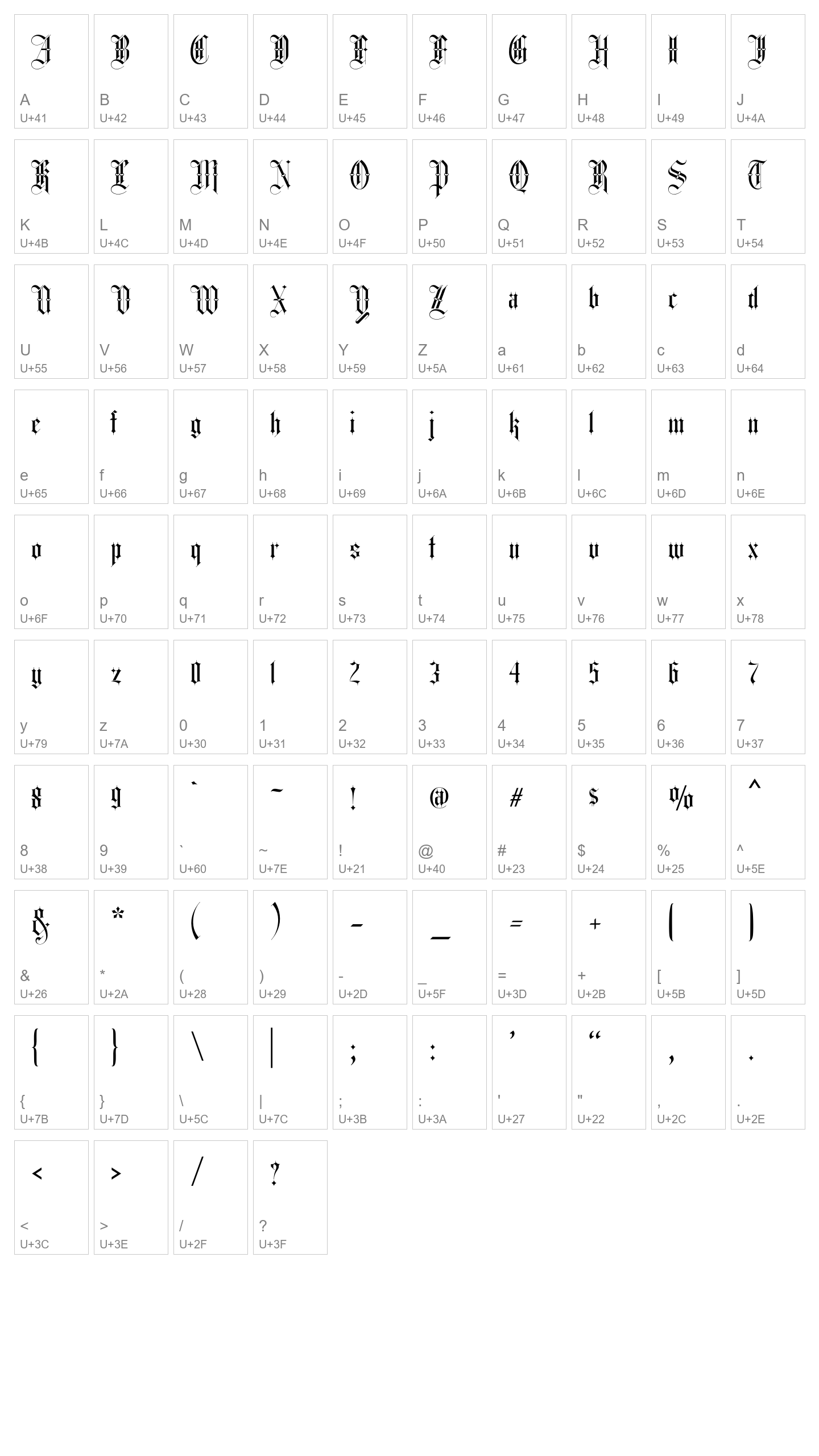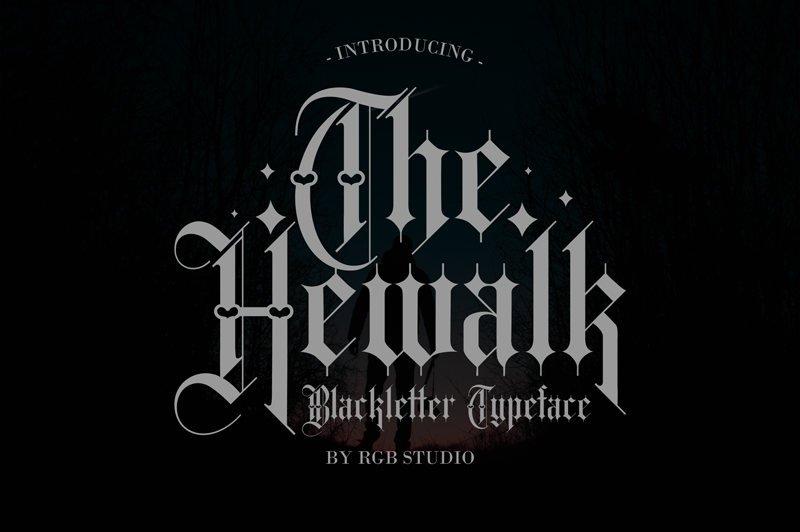
Hewalk
Hewalk is a font inspired by the Blackletter typeface, made with a modern impression but still looks strong and unique. In addition, Young Best font is also supported with multilingual characters that can be used in several international languages.